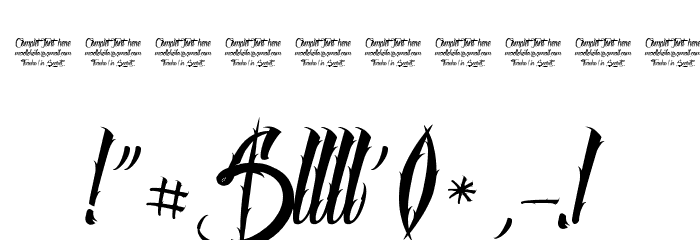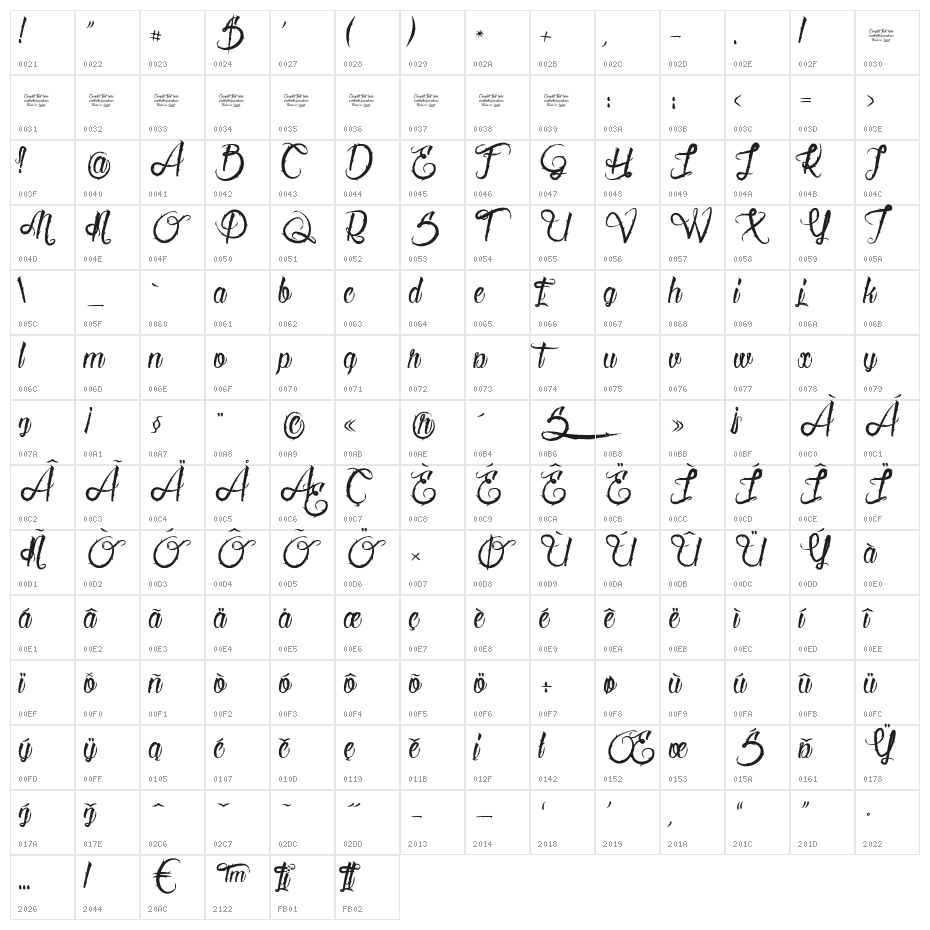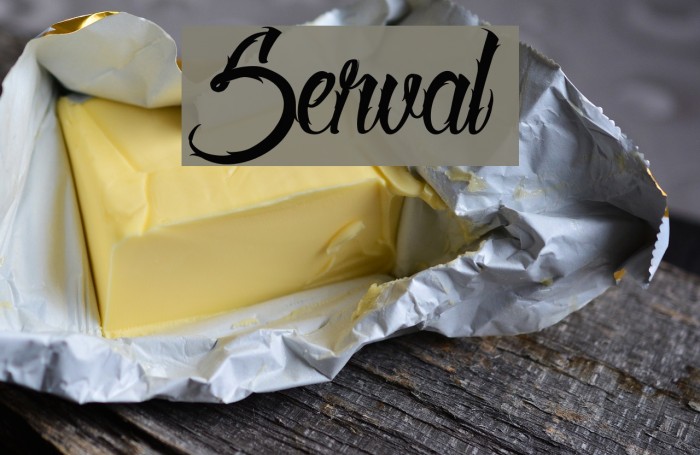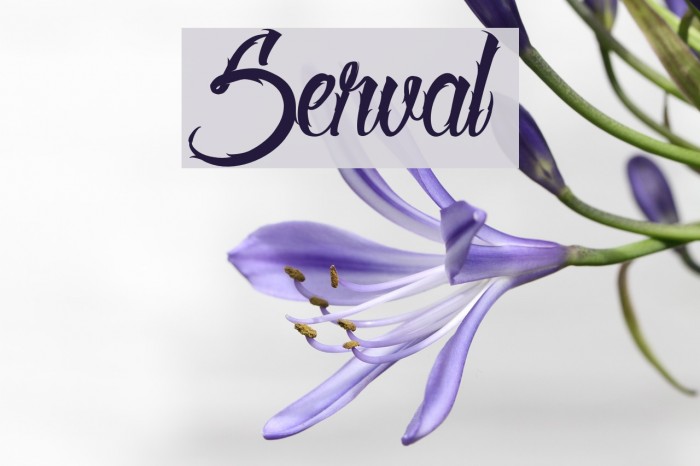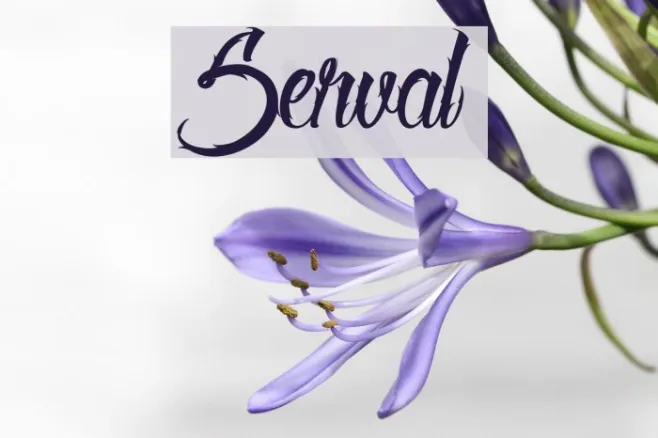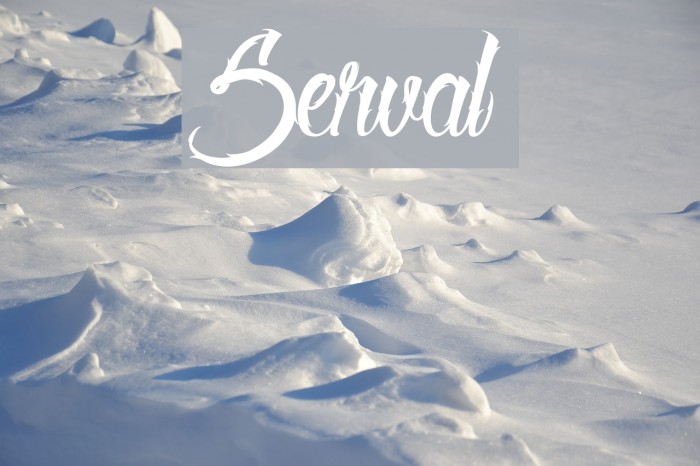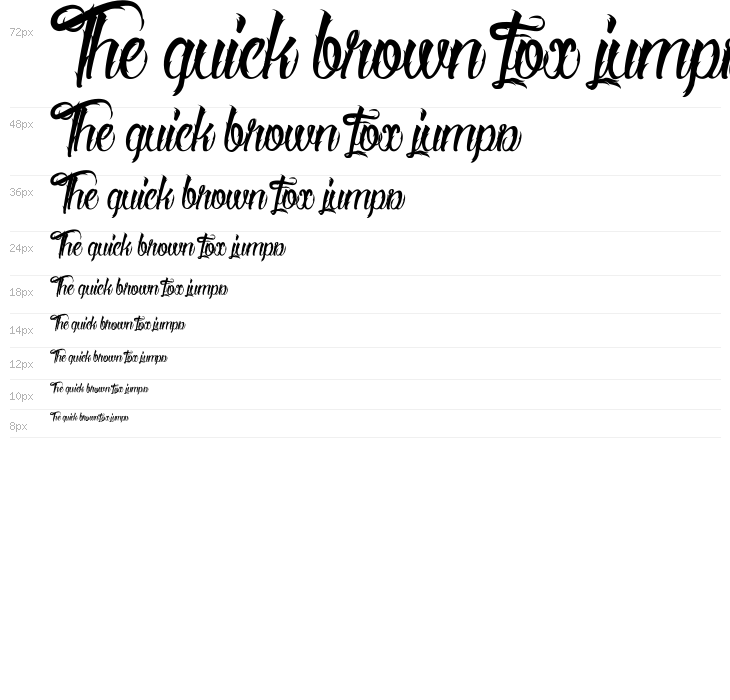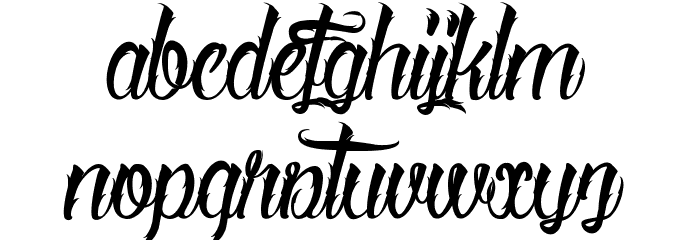
Serval Font
Serval Description
This font features an elegant and intricate script style, characterized by its flowing, cursive letterforms. The uppercase letters are adorned with elaborate swashes and flourishes, giving them a decorative and sophisticated appearance. The lowercase letters maintain a consistent cursive flow, complementing the uppercase with their own subtle embellishments. The font exhibits a high contrast between thick and thin strokes, enhancing its dramatic and artistic flair. The special characters, including punctuation and symbols, are designed with the same attention to detail, ensuring a cohesive and harmonious look throughout the typeface.